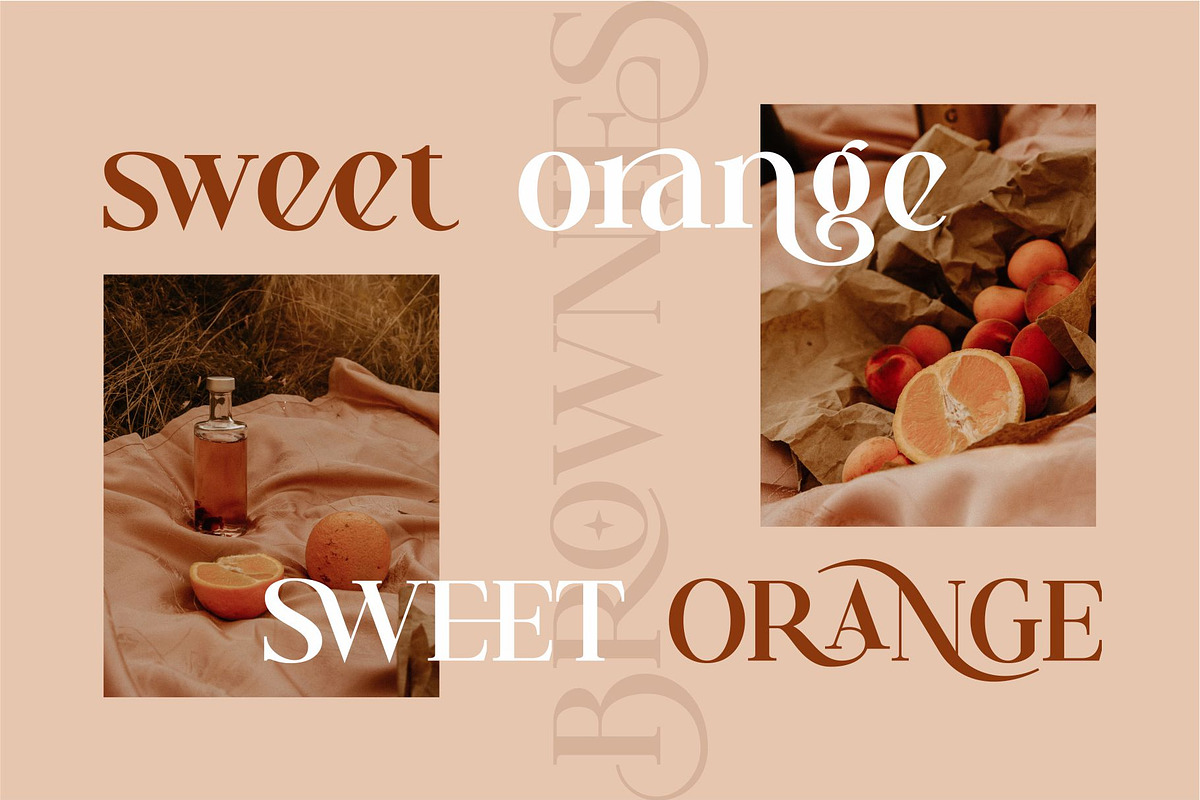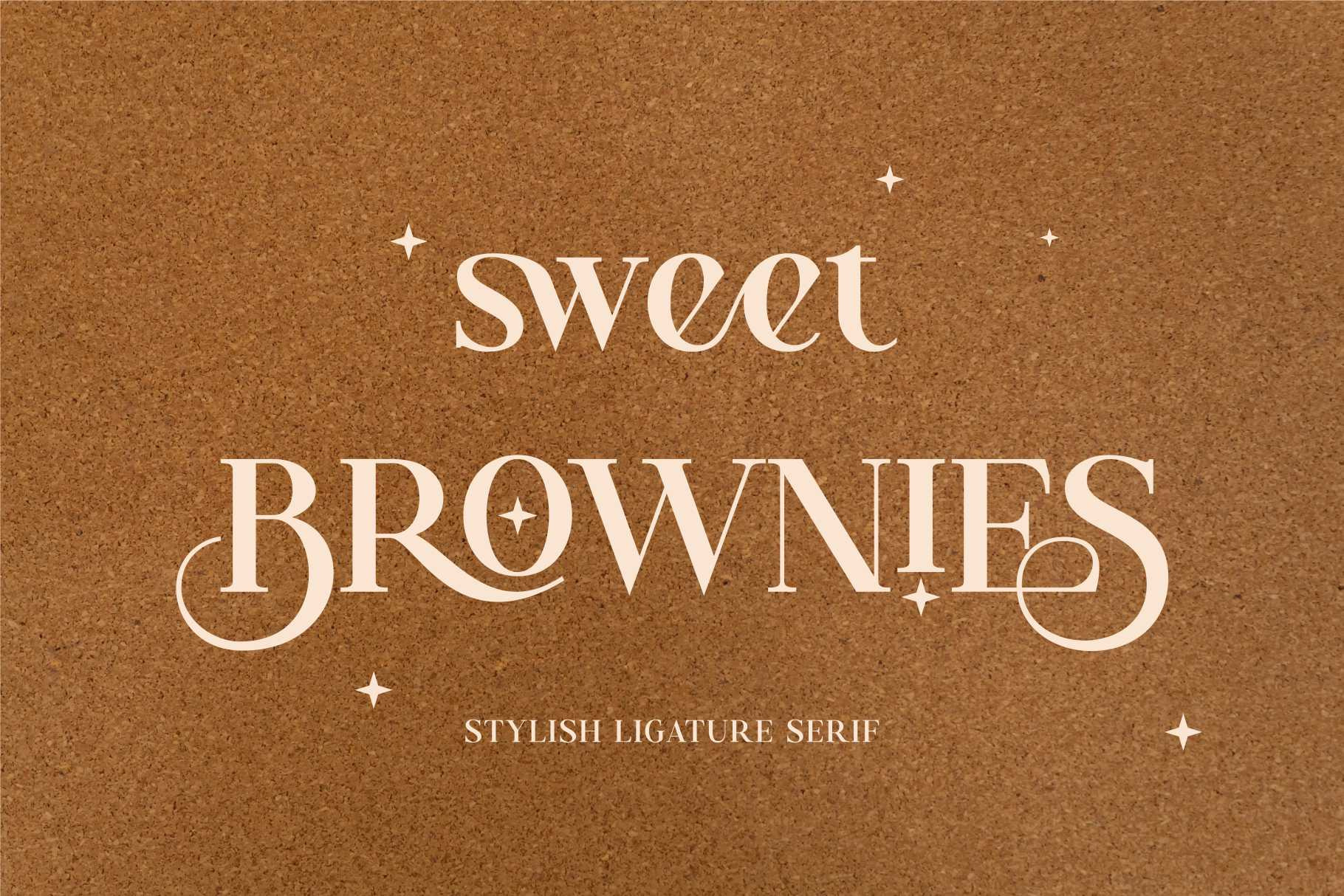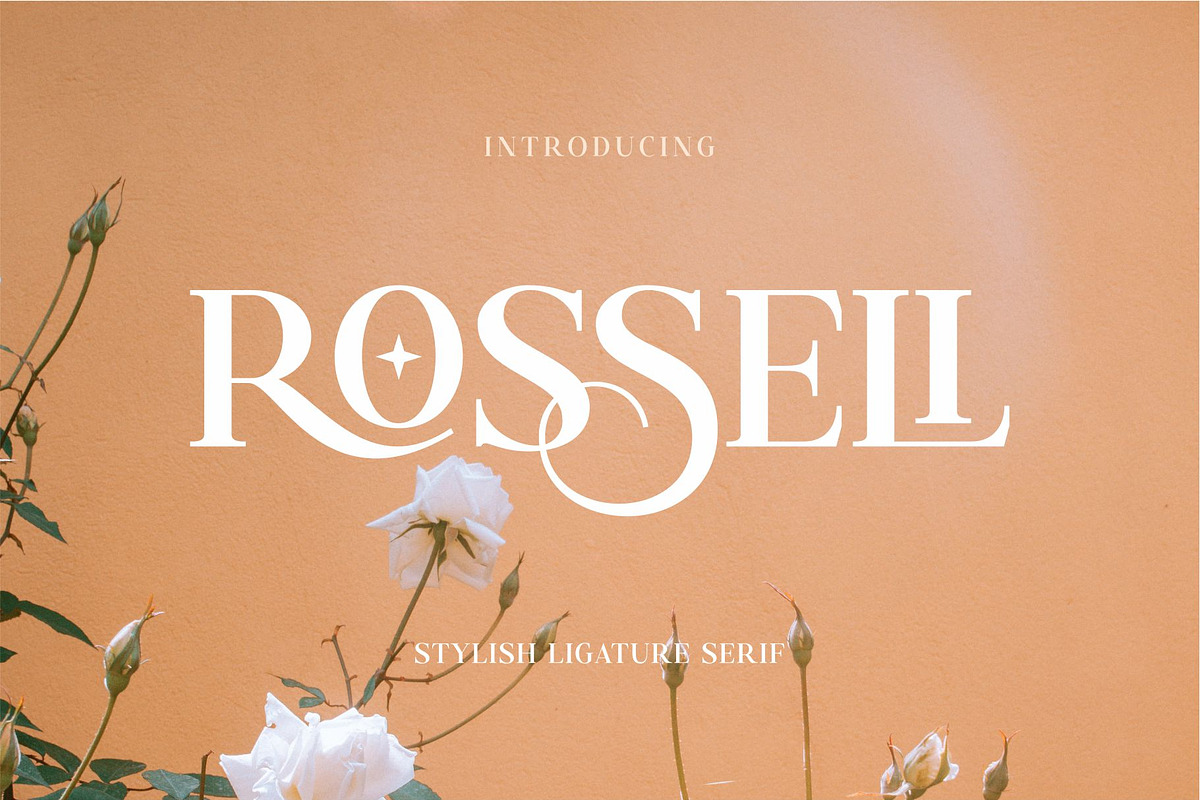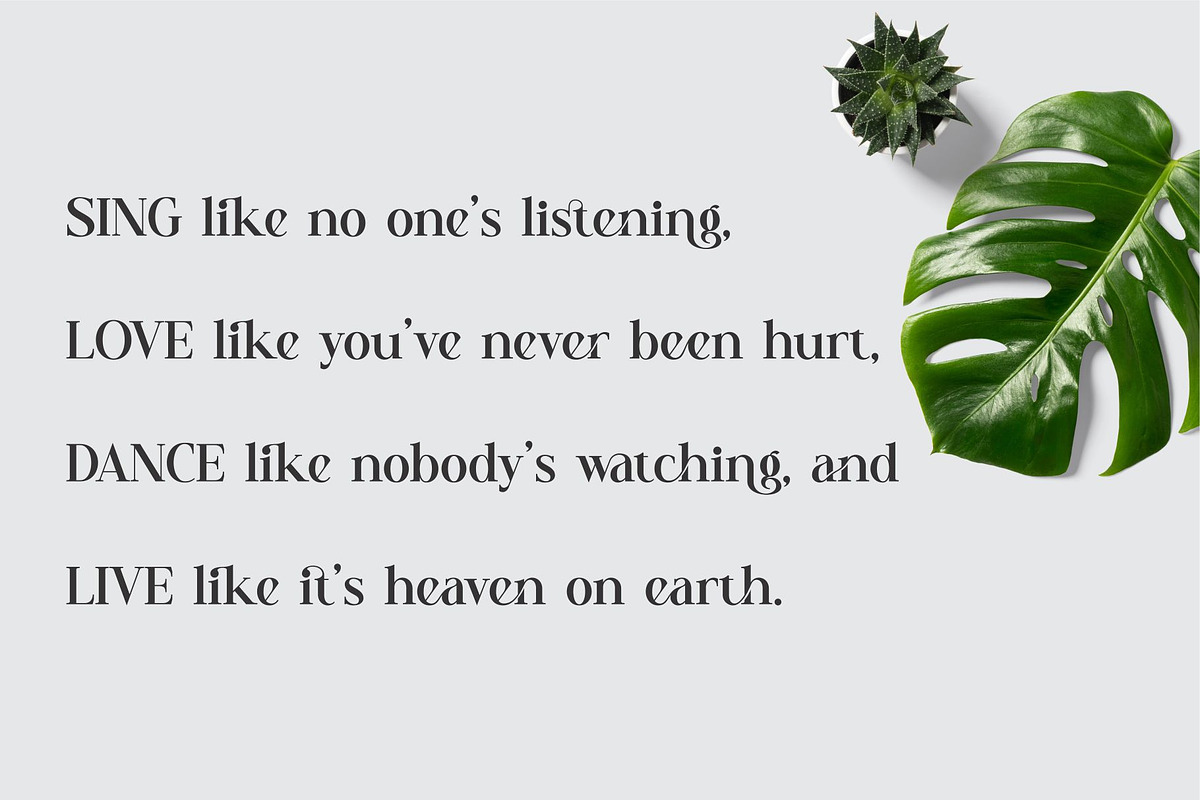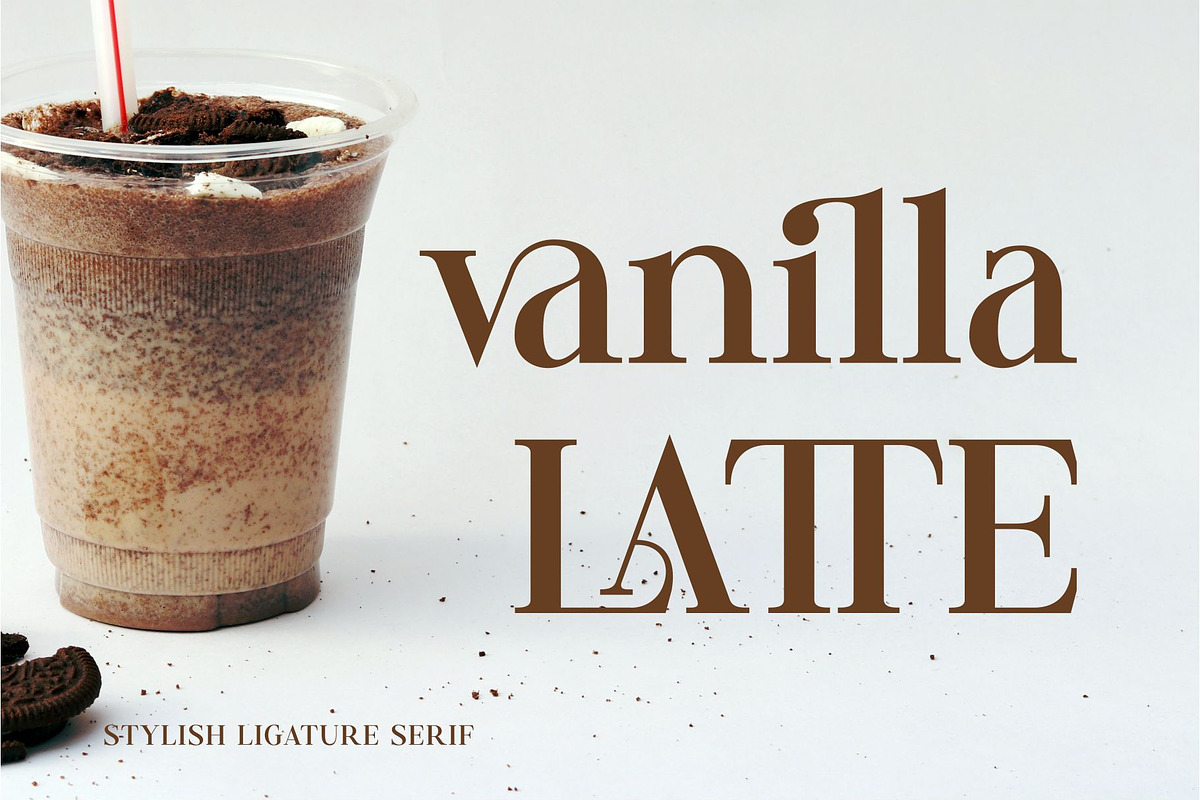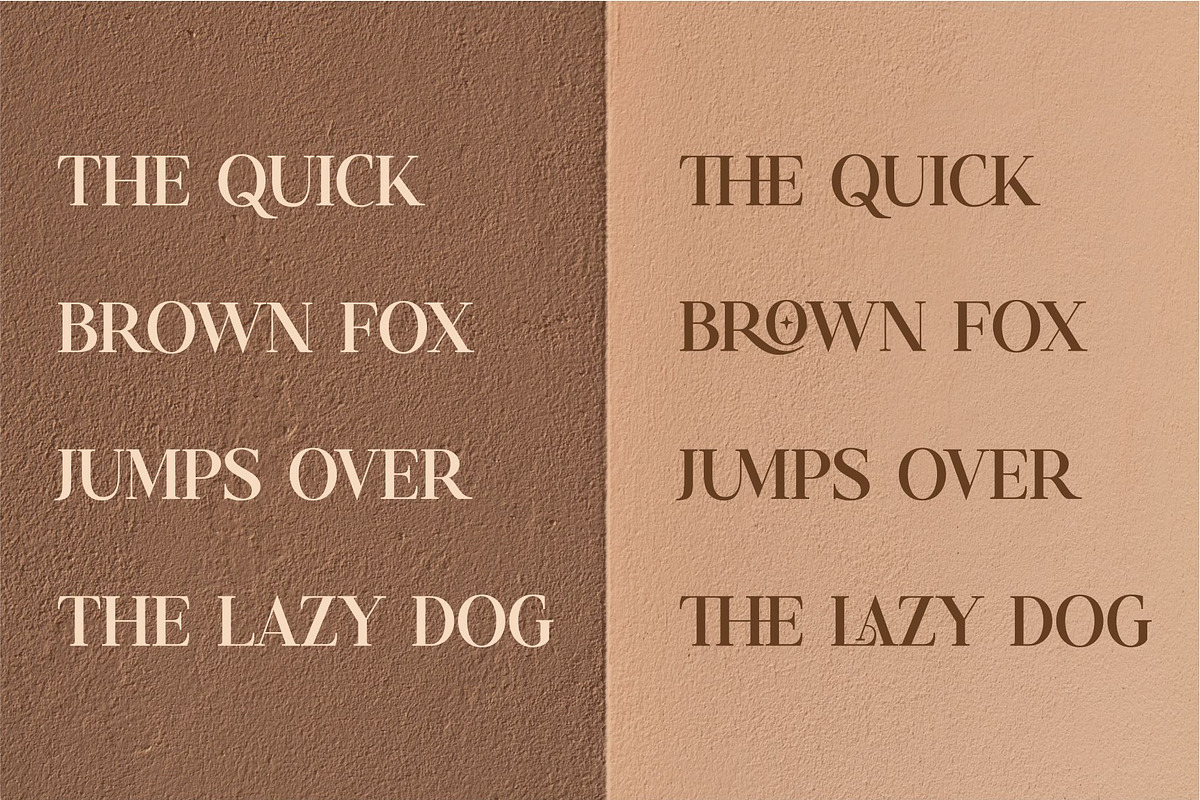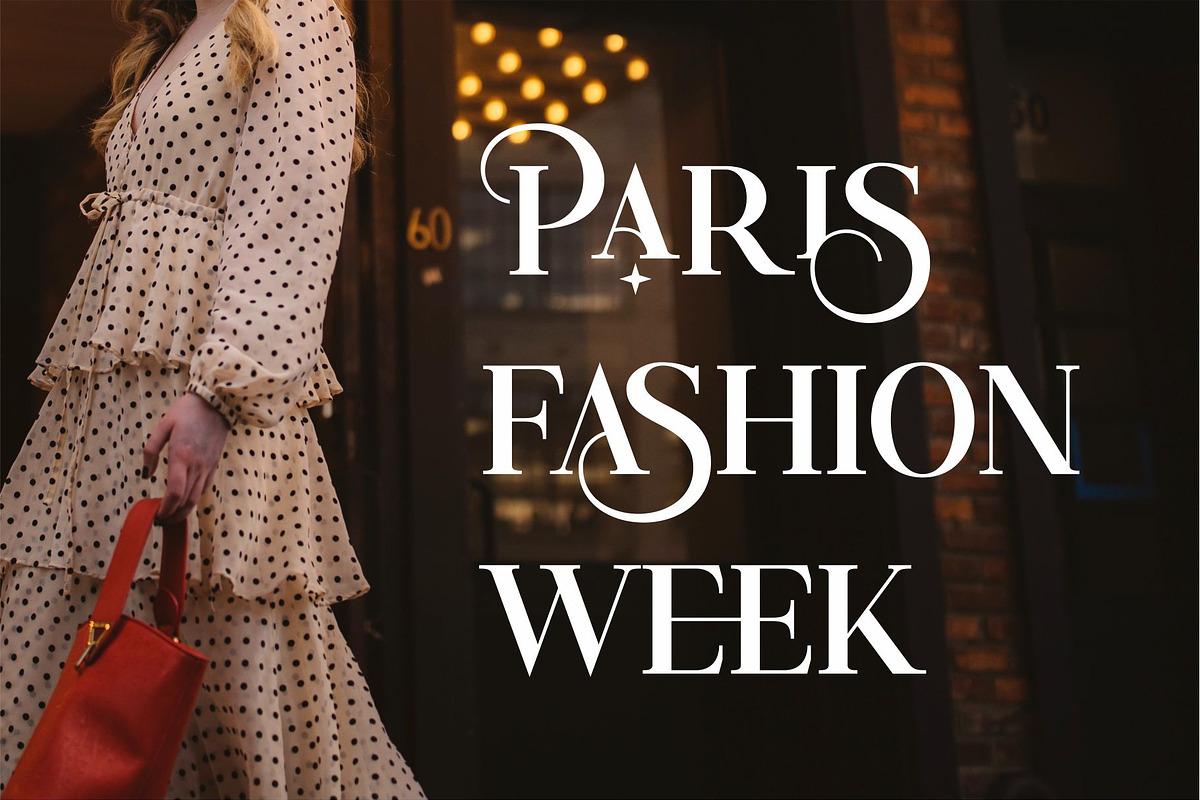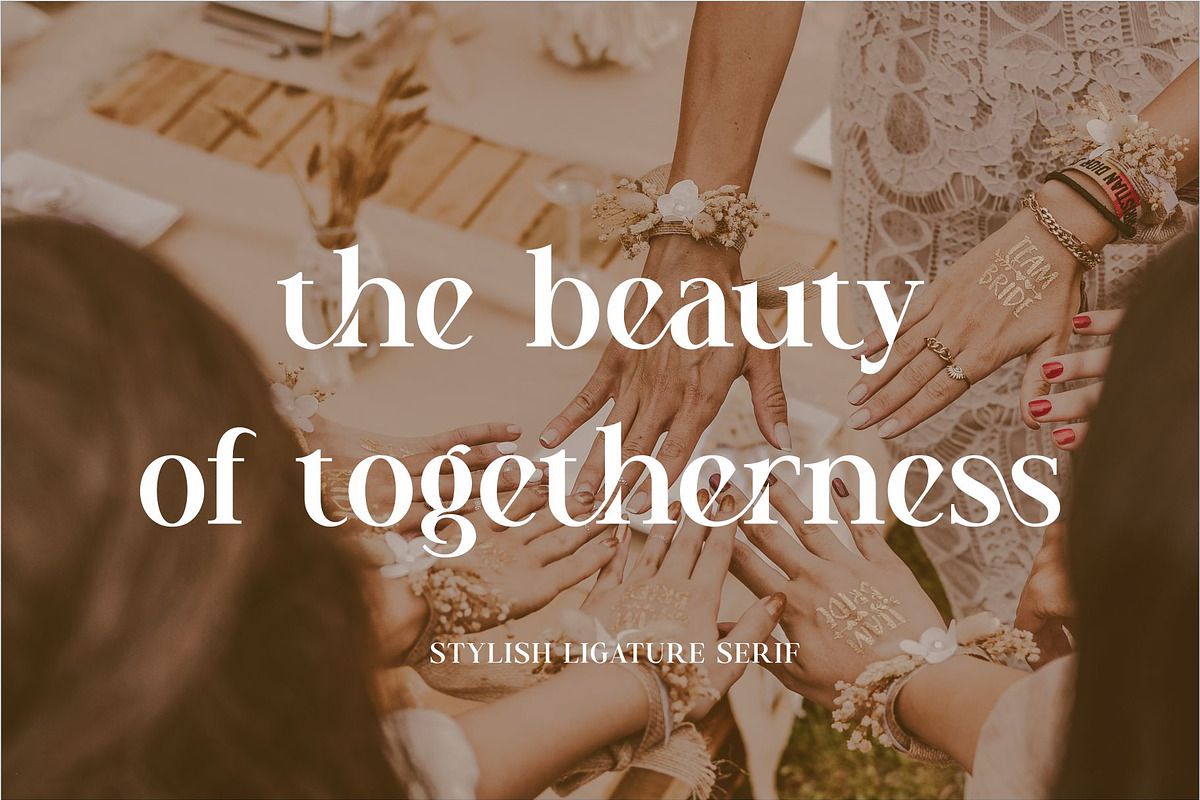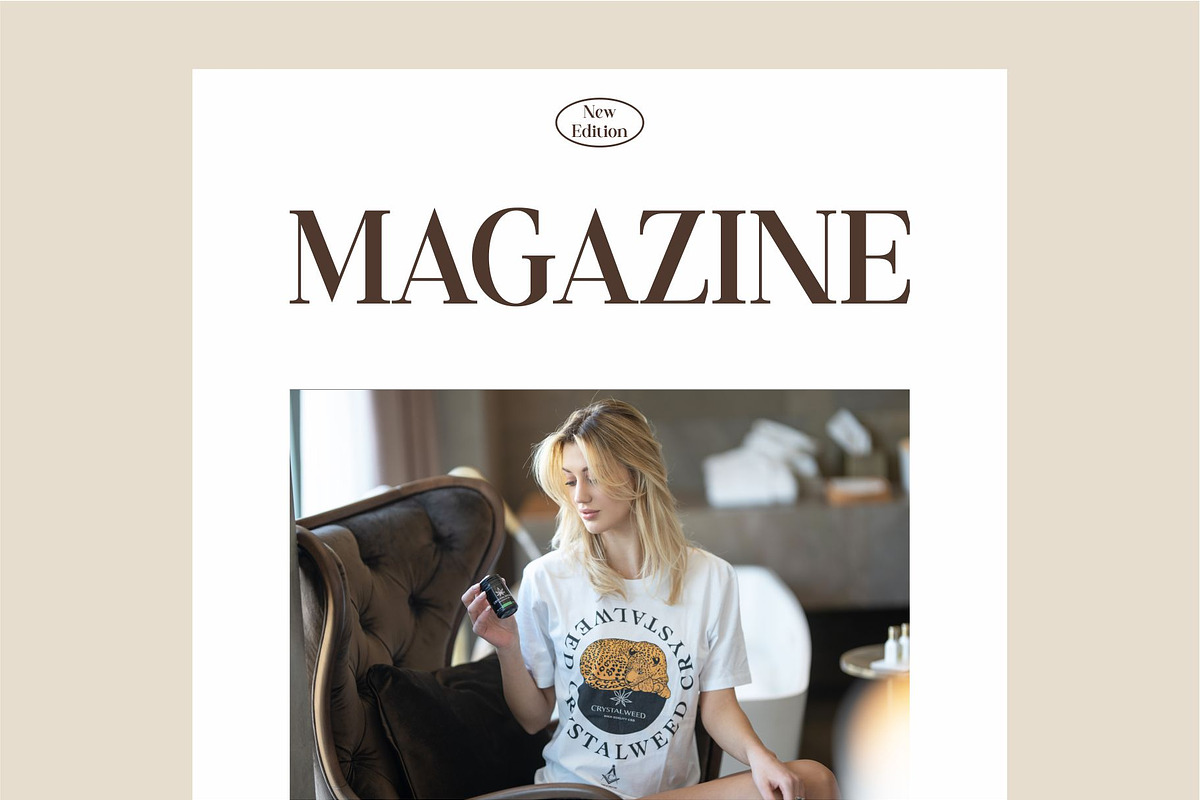
Sweet Brownies Ligature Serif Font
Sweet Brownies Ligature Serif Font inspired by the famous minimalist logo perfect for the purposes of designing templates, brochures, videos, advertising branding, logos, invitation, layout design, elegant crafting, beauty design and more.